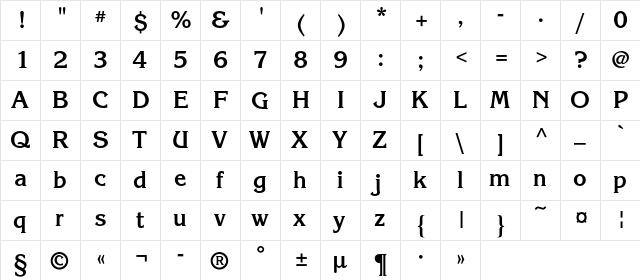
KorinnaC Bold
Design Context for KorinnaC Typeface
KorinnaC offers clean, dependable letterforms without strong stylistic allegiance, making it a practical choice for designers who need flexibility. The heavy weight commands attention and anchors typographic hierarchies.